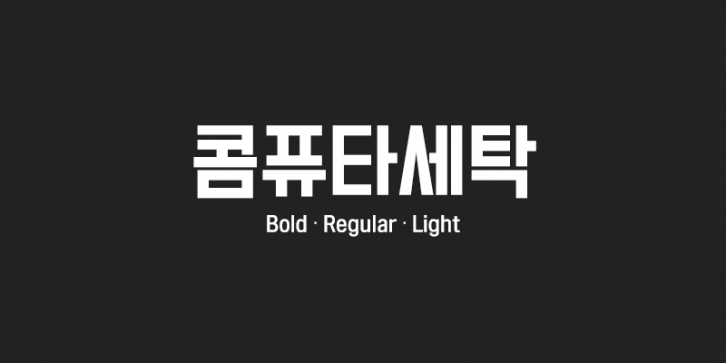
210 Computersetak is designed based on Hangul designs on old street signs in Korea. In order to emphasize a retro vibe, the design utilizes straight strokes rather than curved ones to emulate the style of letters cut out with hand using a knife. These firm and simplified shapes of the letterforms give off an analogue feel.